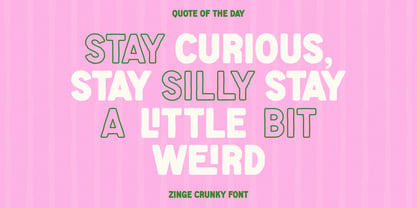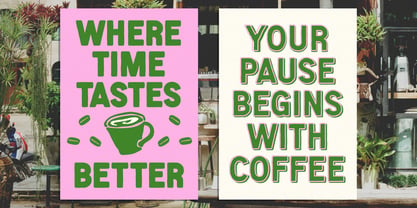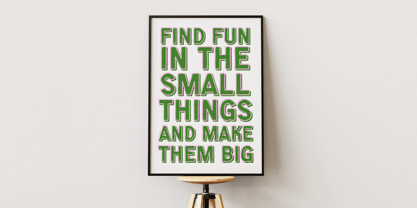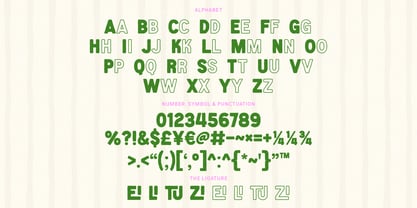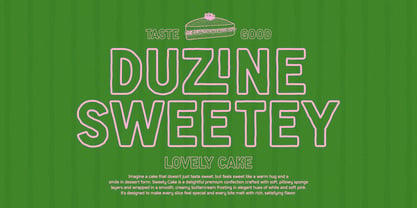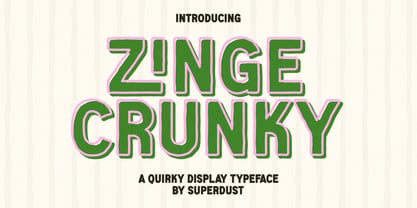
Zinge Crunky
by Super Dust
The Zinge Crunky Font Family was designed by Tri Iriyanto Wibowo and published by Super Dust. Zinge Crunky contains 1 styles. More about this family
Meet Zinge Crunky, a delightfully chaotic display font that dares to be different. Designed with an unapologetically quirky personality, this ugly-yet-lovable typeface embraces the beauty of imperfection, turning every word into a playful visual statement. It breaks away from rigid typography rules with uneven curves, exaggerated proportions, and unpredictable letterforms that radiate confidence, creativity, and pure fun.
The charm of hand-drawn doodles, vintage packaging, underground zines, and the carefree spirit of experimental graphic design inspires Zinge Crunky. Every character carries its own unique attitude, creating a lively rhythm that feels spontaneous rather than structured. The result is a font that looks intentionally unconventional while remaining surprisingly readable, making it perfect for designers who want their work to stand out with originality and character.
One of Zinge Crunky’s most exciting features is its collection of creative ligatures. Rather than simply connecting letters, these carefully crafted combinations introduce unexpected twists that make words flow with extra personality. The ligatures create natural variations throughout your typography, giving headlines and logos a handcrafted appearance that feels fresh and dynamic. Every combination adds a subtle surprise, ensuring that repeated words never look repetitive or predictable.
Whether you're creating bold branding, eye-catching posters, playful packaging, album artwork, social media graphics, stickers, children's products, café menus, merchandise, or editorial headlines, Zinge Crunky delivers an unforgettable visual impact. Its expressive forms instantly capture attention, making it the perfect choice whenever ordinary fonts simply aren't enough.
Despite its eccentric appearance, Zinge Crunky is thoughtfully designed to maintain balance between creativity and usability. The irregular shapes work together harmoniously, allowing designers to experiment with bold compositions while preserving excellent readability in large display settings. It is a font that celebrates imperfections as a design strength rather than a flaw.
More than just a typeface, Zinge Crunky is a celebration of fearless creativity. It encourages designers to embrace the unexpected, challenge conventions, and inject humor into every project. Every letter feels alive with energy, inviting audiences to smile, explore, and engage with your message. If you're searching for a font that refuses to blend into the background, Zinge Crunky is ready to transform your ideas into bold, unforgettable designs filled with quirky charm and irresistible personality.
Designers: Tri Iriyanto Wibowo
Foundry: Super Dust